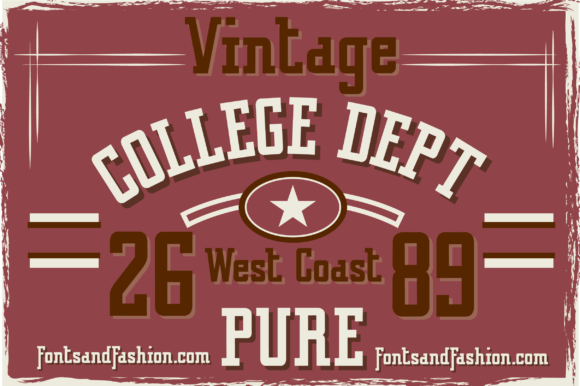
VINTAGE COLLEGE DEPT_Pure is a clean looking slab serif font by university and high school sportswear lettering and by college football jerseys.
It keeps the strict and rigid style of its inspiration, but it isn’t afraid of quirks and tilts, while retaining a decisive sporty character.